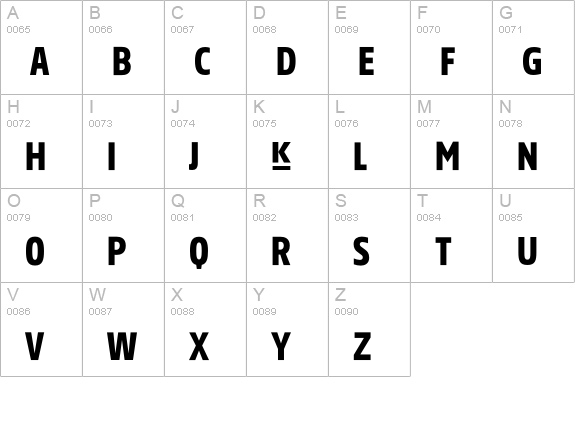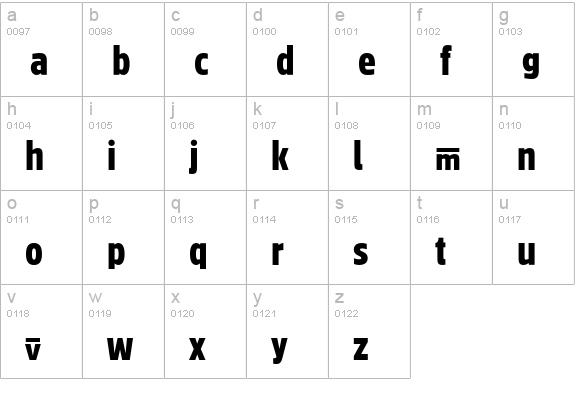
Glasgow1999-Plus font is a modern and sleek typeface that exudes sophistication and elegance. With its clean lines and contemporary design, this font is perfect for a wide range of projects, from branding to editorial design. The versatility of Glasgow1999-Plus font makes it a must-have for any designer looking to add a touch of style to their work. What sets Glasgow1999-Plus font apart is that it is available for free download at FontsMarket.com. This means that you can access this high-quality font without having to spend a dime. Whether you are a professional designer or just starting out, Glasgow1999-Plus font offers a cost-effective way to elevate your projects and make a lasting impression. Download Glasgow1999-Plus font today from FontsMarket.com and discover the endless possibilities it brings to your designs. Don't miss out on this fantastic opportunity to enhance your creative work with a premium font that won't break the bank.